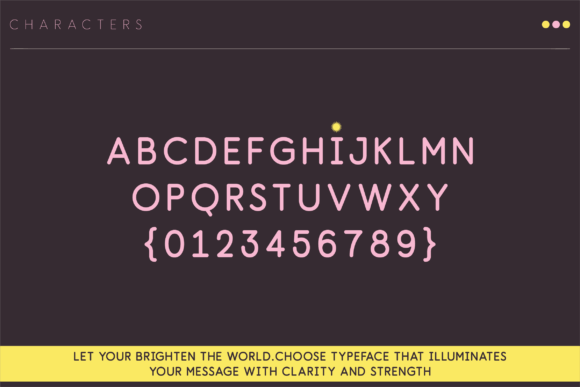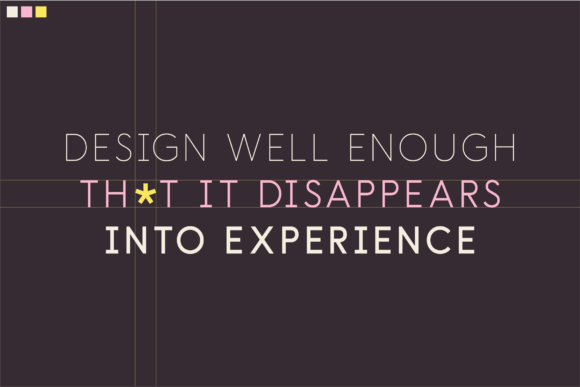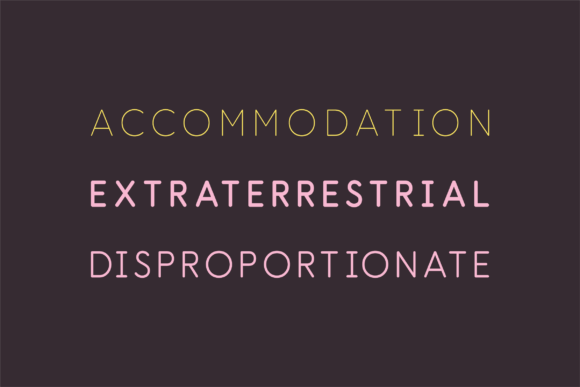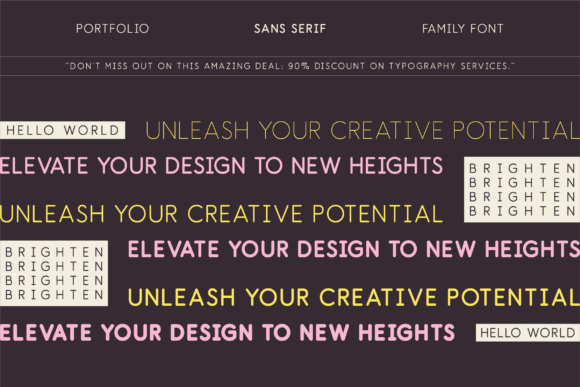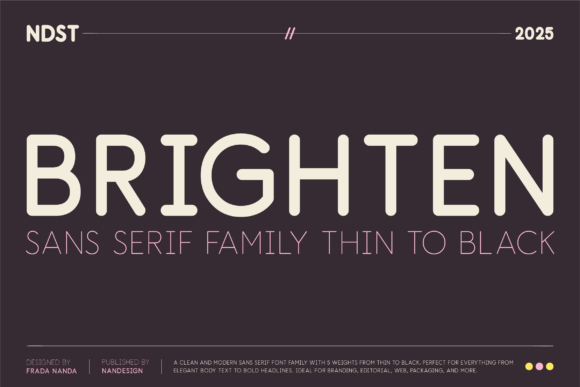
Introducing Brighten Rounded: The Perfect Blend of Modernity and Warmth
In the world of typography, fonts play a crucial role in shaping the identity of a brand. A well-crafted font can instantly convey a brand’s personality, values, and tone. For designers and crafters, finding the perfect font that balances modernity with warmth and approachability can be a daunting task. This is where Brighten Rounded comes in – a beautifully designed font that brings the trusted structure of the original Brighten, softened with gentle curves that add warmth, friendliness, and approachability.
The Evolution of Brighten
Brighten Rounded is an evolution of the original Brighten font, which was known for its refined geometry and balanced rhythm. The original Brighten was a modern sans-serif font that exuded confidence and sophistication. However, in its pursuit to create a more human touch, the designers at MyFonts introduced gentle curves to the font, giving birth to Brighten Rounded.
What Makes Brighten Rounded Special?
So, what sets Brighten Rounded apart from other fonts? Here are a few key features that make it an excellent choice for designers and crafters:
- Rounded Terminals: The rounded terminals of Brighten Rounded breathe new life into its modern silhouette, making it ideal for brands that want to feel premium, but not cold; confident, but still welcoming.
- Five Versatile Weights: Brighten Rounded is available in five versatile weights, making it adaptable across print, digital, and motion design.
- Clarity and Charm: The font is built for clarity, but it doesn’t sacrifice charm. Every curve is considered, and every glyph is designed to feel familiar, friendly, and flawlessly legible.
Perfect for Brands that Put People First
Brighten Rounded is designed for brands that prioritize people and want to create an instant connection with their audience. Whether you’re crafting packaging for lifestyle products, building an app with personality, or branding a company that puts people first, Brighten Rounded is the perfect choice.
Use Cases for Brighten Rounded
The versatility of Brighten Rounded makes it suitable for a wide range of applications, including:
- Packaging Design: Brighten Rounded is perfect for packaging design, especially for lifestyle products that require a friendly and approachable tone.
- App Design: The font’s rounded terminals and gentle curves make it an excellent choice for app design, adding a touch of personality to your digital product.
- Branding: Brighten Rounded is ideal for branding projects that require a font that is both modern and welcoming.
Brighten Rounded is more than just a softer version of the original Brighten font. It’s a new voice that speaks volumes. With its gentle curves, rounded terminals, and versatile weights, Brighten Rounded is the perfect choice for designers and crafters who want to create a brand that feels premium, yet approachable. Whether you’re working on a packaging design, app design, or branding project, Brighten Rounded is sure to make a lasting impression.
In conclusion, Brighten Rounded is a beautifully designed font that is sure to elevate your designs to the next level. Its unique blend of modernity and warmth makes it an excellent choice for designers and crafters who want to create a brand that feels premium, yet approachable. So, what are you waiting for? Get ready to brighten up your designs with Brighten Rounded!